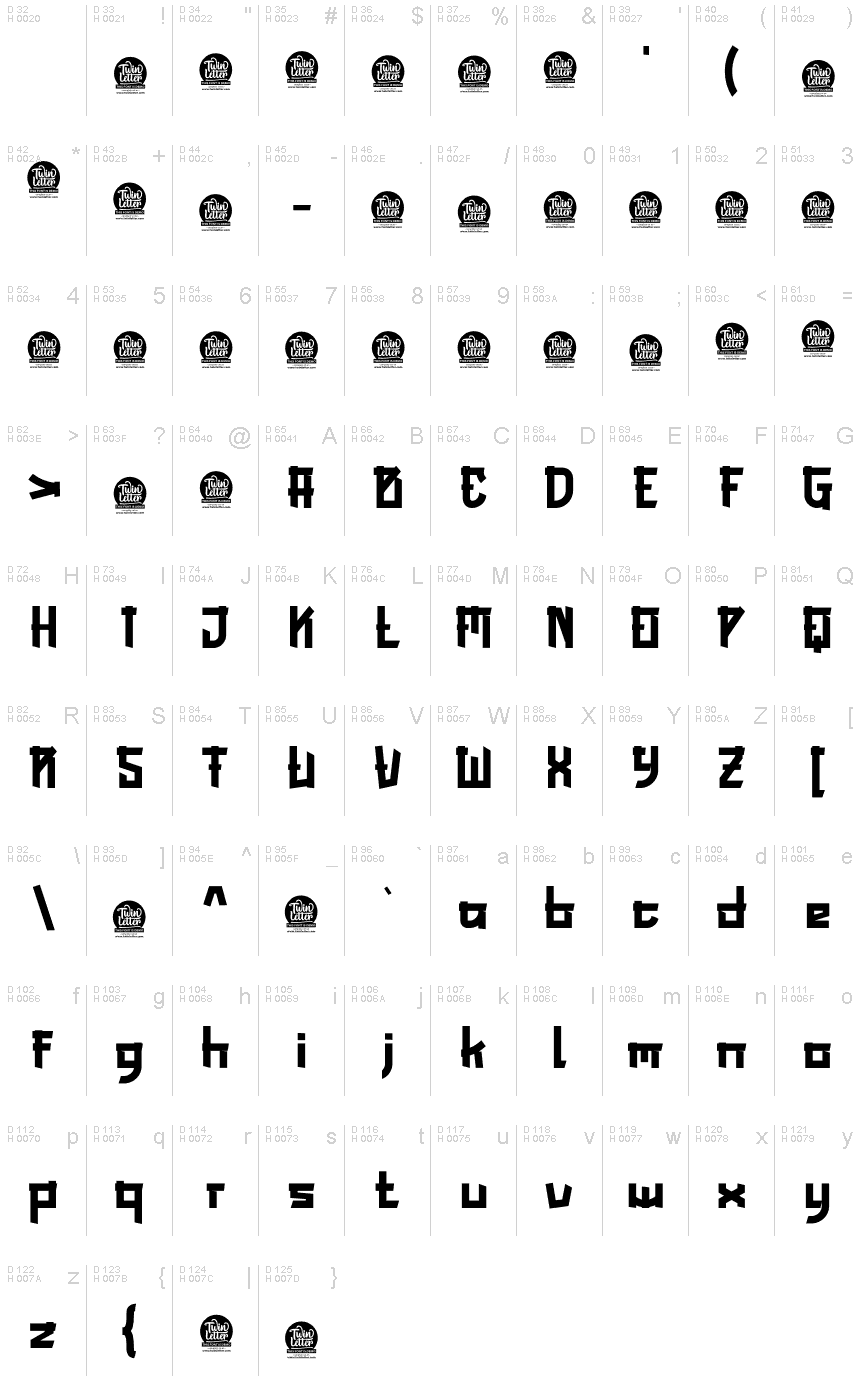
KOGAMA Personal Use
KOGAMA, a bold Japanese-style font designed by ROZI, is perfect for projects that require a unique and eye-catching look. From vibrant anime posters to modern branding designs, KOGAMA will give your project an edge.